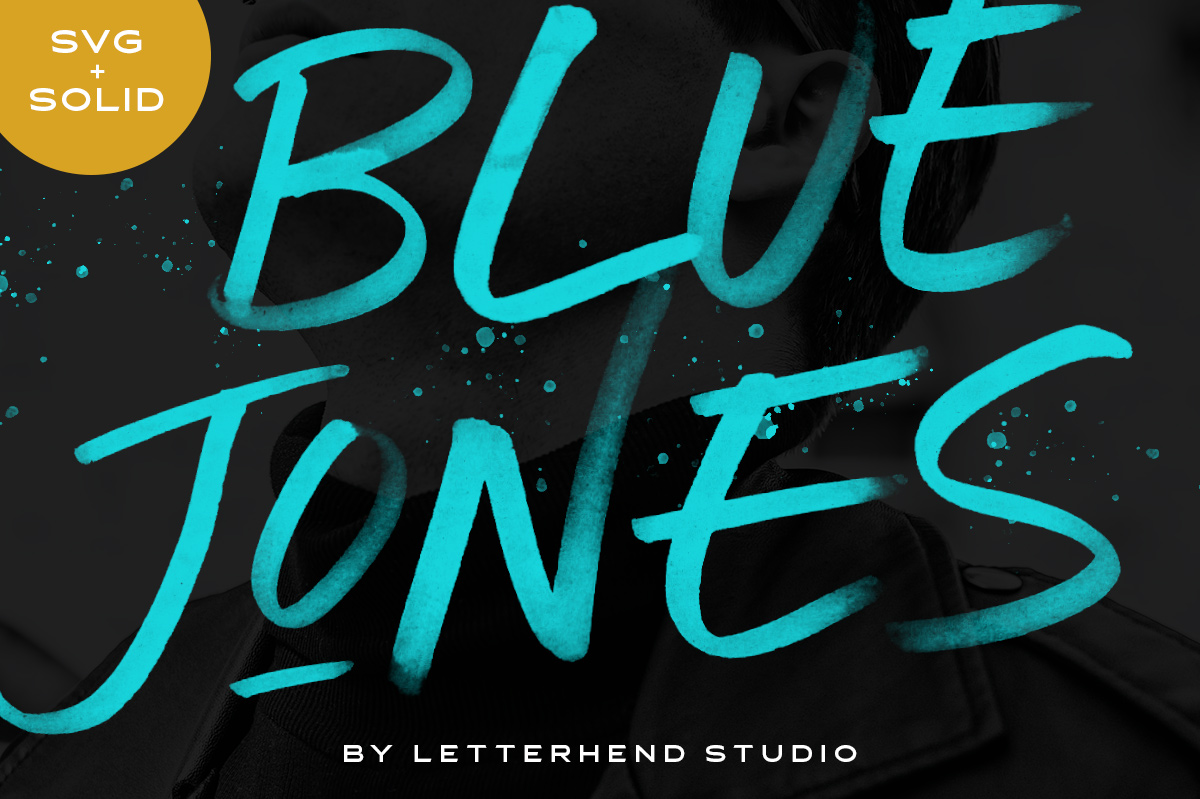
Blue Jones Font
Blue Jones Font is widely used in jazz club branding, blues music album covers, vintage denim packaging, classic Americana posters, retro bar signage, nostalgic brand identities, old-school magazine layouts, and authentic American heritage designs.
Blue Jones Font is an exciting typeface that captures the soulful essence of American blues culture with its rhythmic character and timeless appeal. This font embodies musical heritage, authentic storytelling, and deep emotional resonance, making it perfect for brands that want to convey genuine American tradition, soulful expression, and cultural authenticity in their heartfelt visual communications.
The Blue Jones Font family consists of Regular, Bold, Light, Italic, Condensed, Extended, Vintage, and Distressed variants. This soulful collection enables designers to create authentic typographic experiences that maintain cultural consistency while offering expressive flexibility for various music and heritage applications.
The distinctive soul of Blue Jones Font lies in its ability to convey the deep emotional expression and cultural richness of American blues tradition through carefully crafted letterforms. Each character maintains the organic rhythm and natural flow that reflects the improvisational spirit of blues music. The font's balanced proportions and authentic character variations create visual harmony that mirrors the timeless appeal of classic American musical storytelling.
Music venues and heritage brands choose Blue Jones Font for its ability to communicate authentic American culture and emotional depth. The typeface works magnificently in music festival branding, vintage clothing labels, craft brewery communications, and cultural institution materials. Its soulful aesthetic appeals to audiences who value genuine cultural expression and authentic American musical heritage.
The musical craftsmanship of Blue Jones Font includes rhythmic ligatures and authentic variations that enhance the natural flow of blues-inspired typography while maintaining the cultural character essential to American heritage communication. These soulful features ensure that text maintains the emotional resonance and authentic spirit that defines legitimate American cultural branding while meeting professional standards for commercial music industry applications.